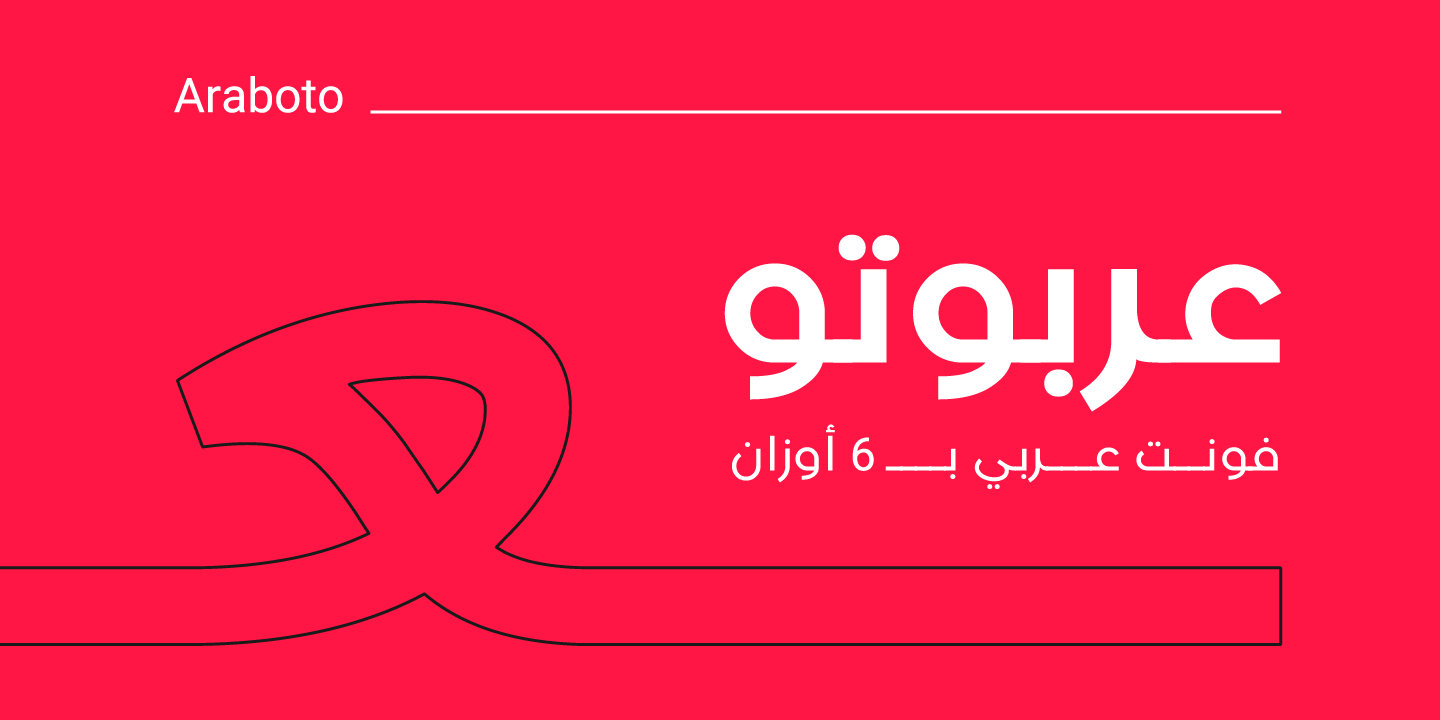
Araboto Font is perfect for modern Arabic design projects including contemporary Middle Eastern businesses, Arabic tech companies, modern Islamic organizations, bilingual corporate communications, Arabic language apps, Middle Eastern startups, modern Arabic publications, and progressive cultural campaigns. This innovative typeface works perfectly for Arabic digital platforms, modern Middle Eastern brands, contemporary Islamic art centers, Arabic educational technology, and projects that celebrate the fusion of traditional Arabic script with contemporary design innovation.
What makes Araboto Font exciting is its contemporary Arabic character that perfectly captures the essence of modern Middle Eastern sophistication and digital Arabic innovation. The font features sleek letterforms with technological styling that reflects the progressive evolution and contemporary relevance of Arabic typography in digital environments. Its modern design elements embody the spirit of Arabic technological advancement and cultural modernization, making it perfect for projects that need to convey innovation, progress, and connection to modern Arabic culture. The carefully crafted contemporary proportions create an atmosphere of technological sophistication and Arabic authenticity.
Araboto Font comes in multiple family variations including modern, technological, contemporary, and progressive styles. Each weight maintains the distinctive Arabic character while offering different levels of technological intensity and modern presence. The font family includes digital alternates, modern ligatures, and contemporary variations that provide designers with comprehensive options for creating truly innovative and authentically modern typographic compositions that celebrate Arabic excellence.
Whether you're designing modern Arabic branding, creating technological marketing materials, or developing contemporary promotional graphics, Araboto Font Free Download provides the perfect typographic foundation for projects that celebrate Arabic innovation and modern sophistication. This remarkable typeface transforms ordinary text into compelling expressions of contemporary wisdom and Arabic technological advancement. Download this innovative font today and modernize your design projects with the Arabic authenticity and technological refinement that captures the essential spirit of modern Middle Eastern culture and digital Arabic communication.